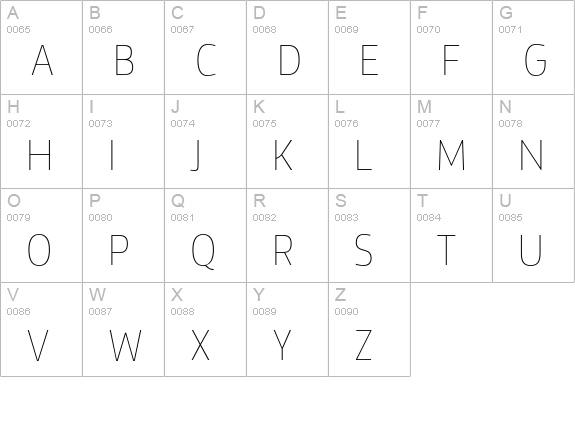
Vinkel Thin Font Details
Vinkel Thin is a delicate, low-contrast variant in the Vinkel typeface family \xE2\x80\x94 well suited to fashion editorial, minimal branding, and high-contrast display.
Vinkel Thin font is a sleek and modern typeface that exudes sophistication and elegance. With its slender lines and minimalist design, this font is perfect for creating clean and stylish designs. The thin letterforms add a touch of refinement to any project, making it ideal for branding, packaging, and editorial work. What sets Vinkel Thin font apart is not only its contemporary look but also its versatility. Whether used for titles, headlines, or body text, this font maintains excellent legibility and readability across various mediums. Its unique character shapes and spacing make it a standout choice for those looking to make a statement with their typography. The best part about Vinkel Thin font? It's completely free to download at FontsMarket.com! This means you can easily access this high-quality font without breaking the bank. So why wait? Elevate your designs with Vinkel Thin font today and make a lasting impression with its sophisticated and refined aesthetic.